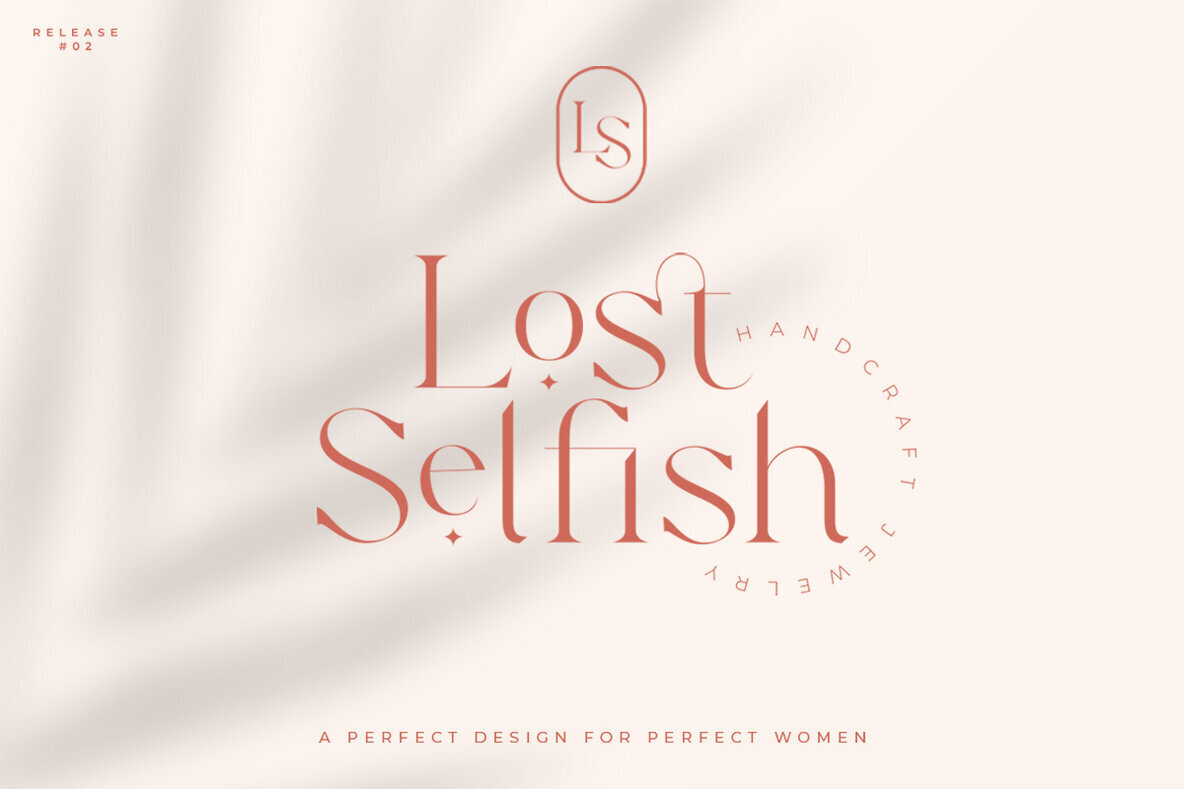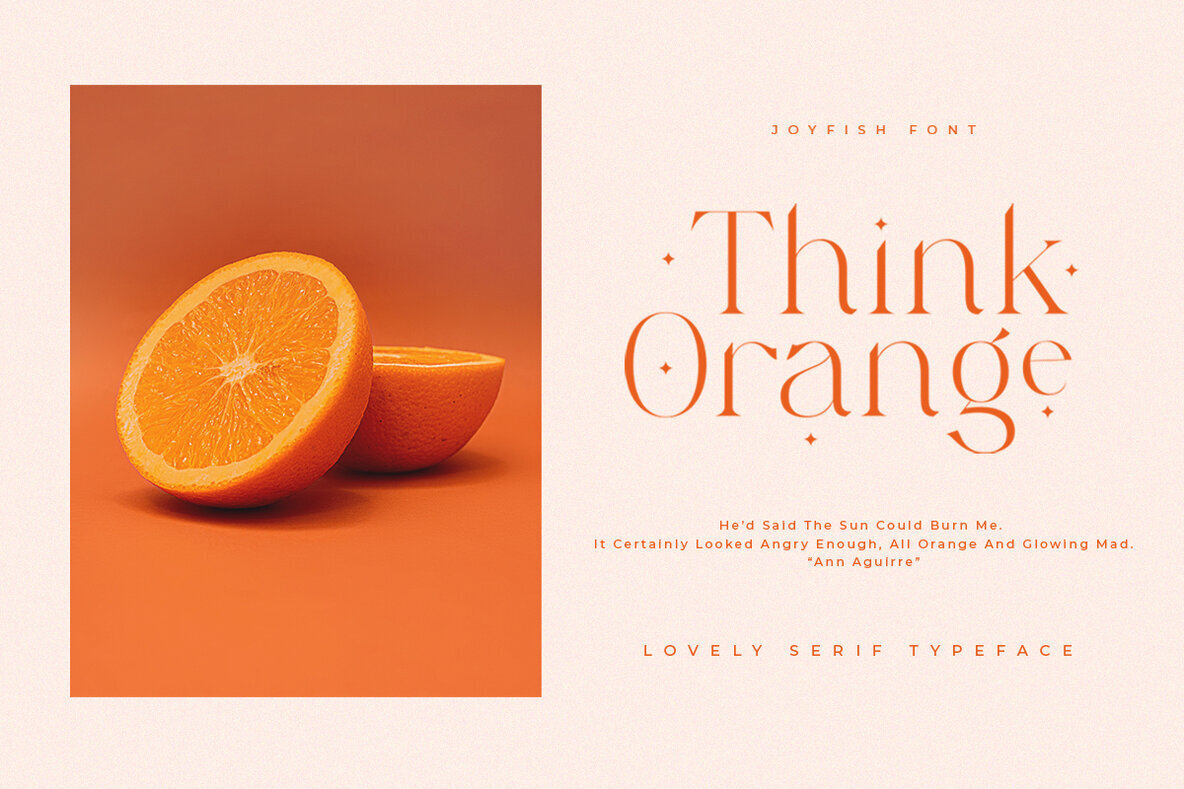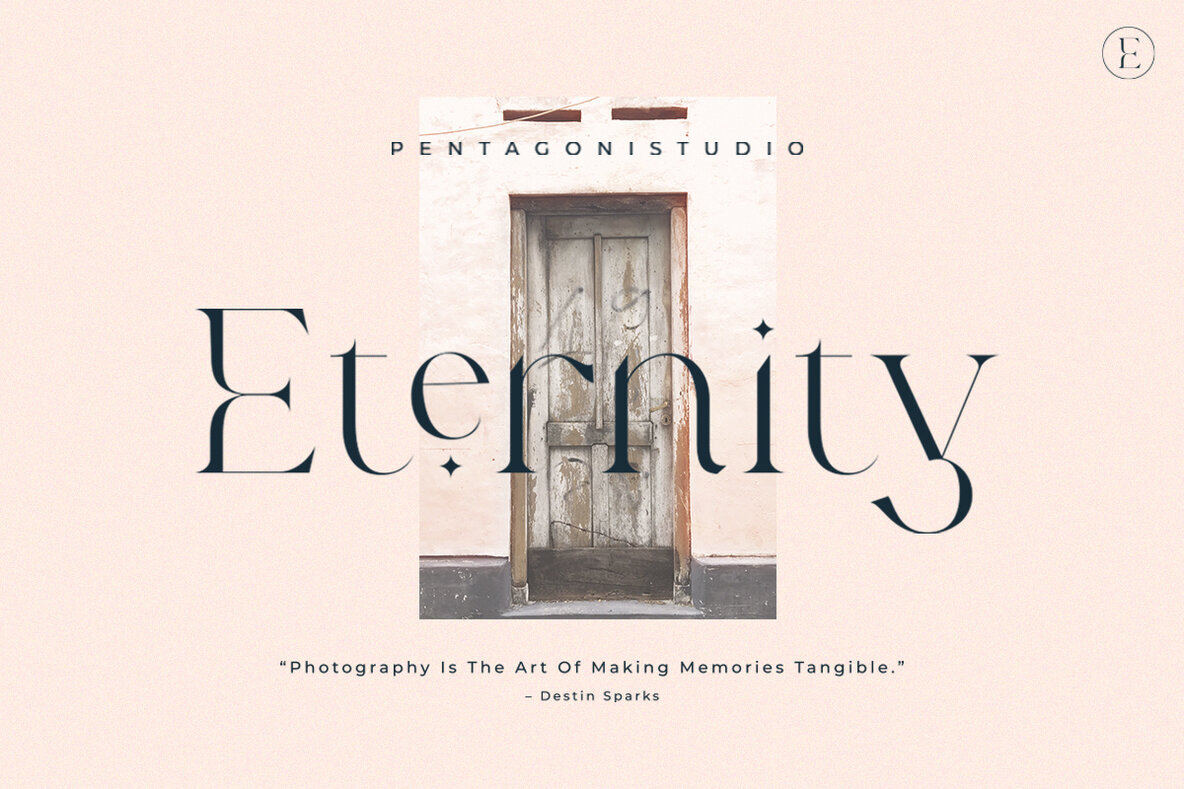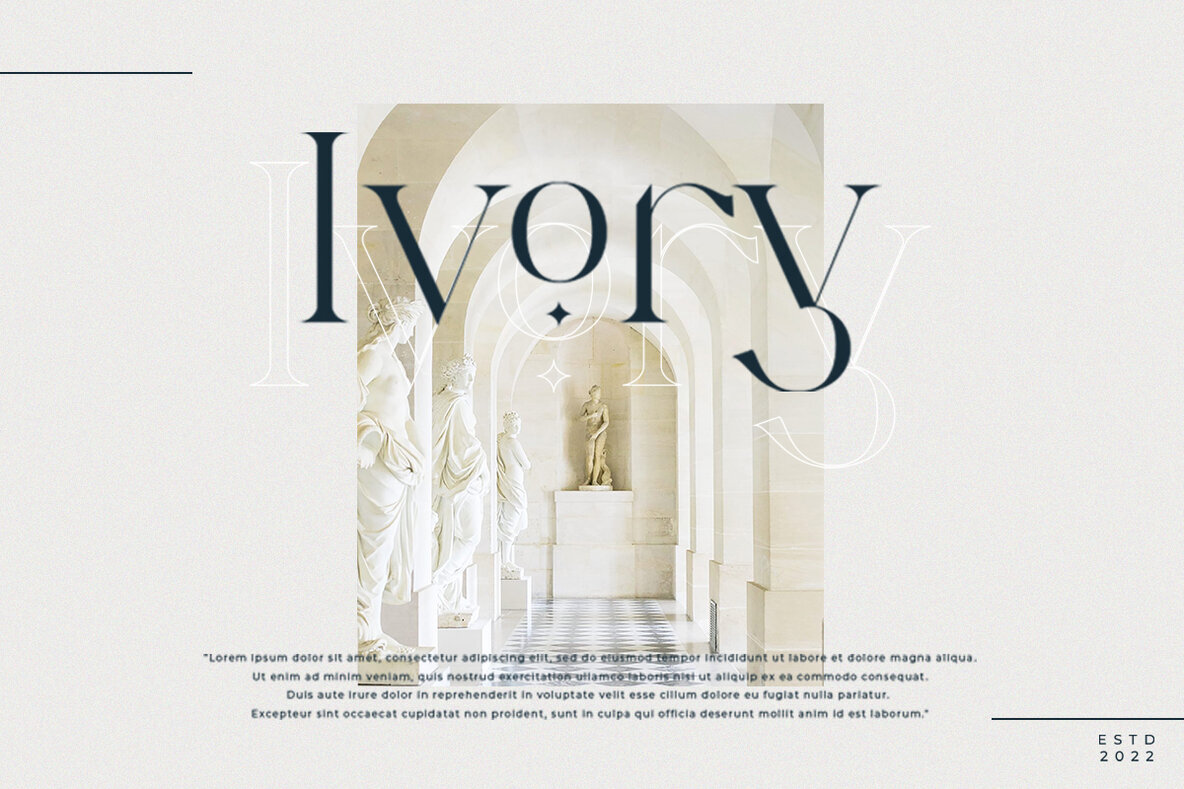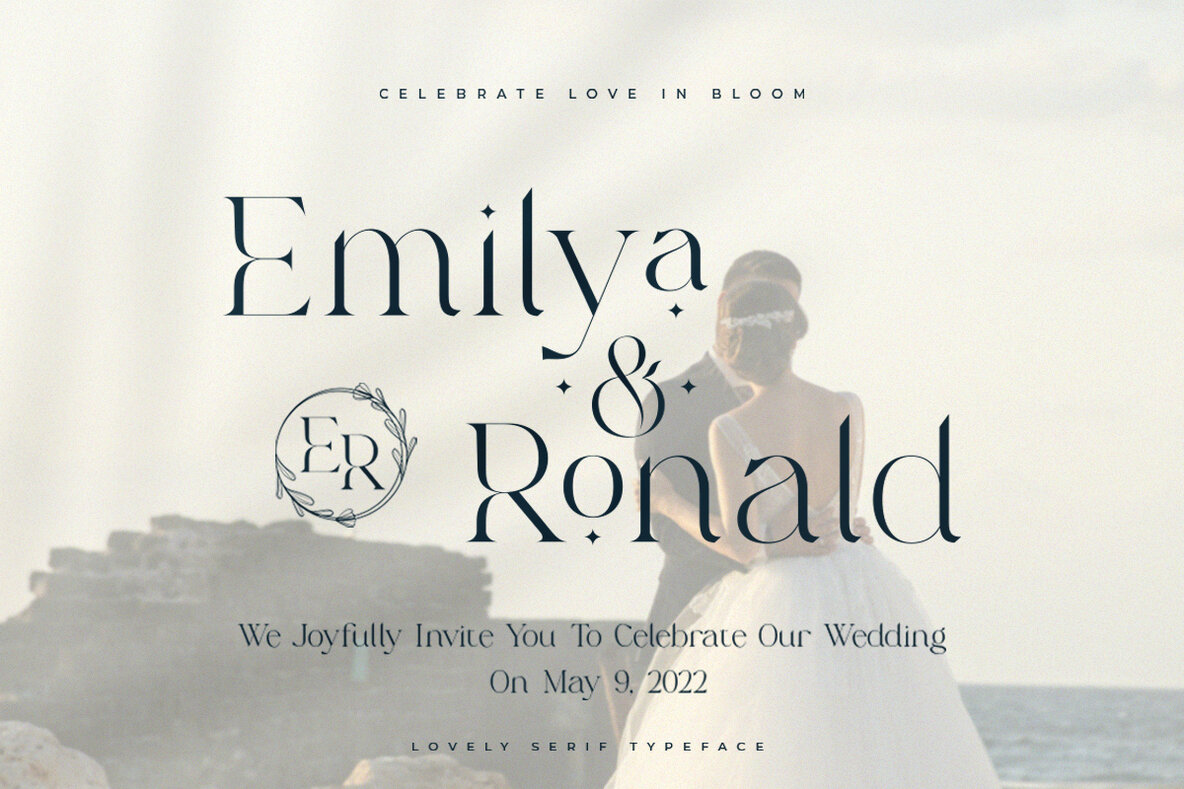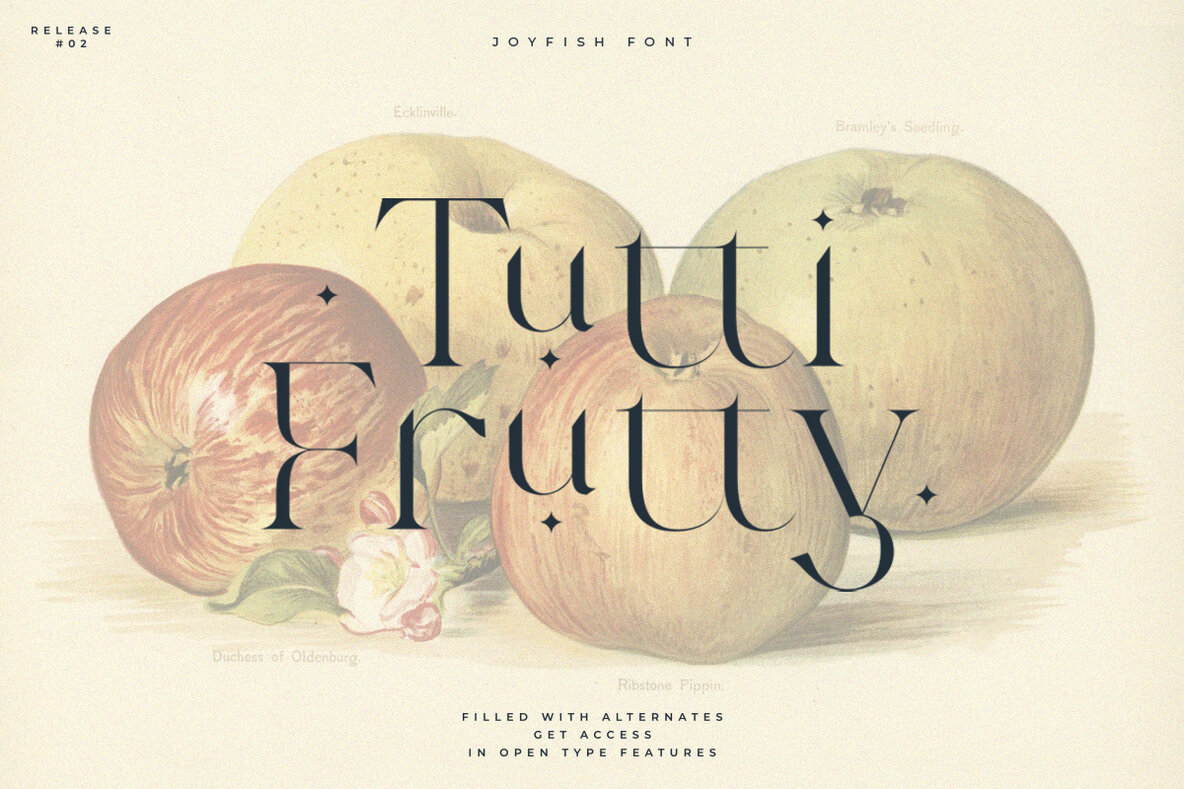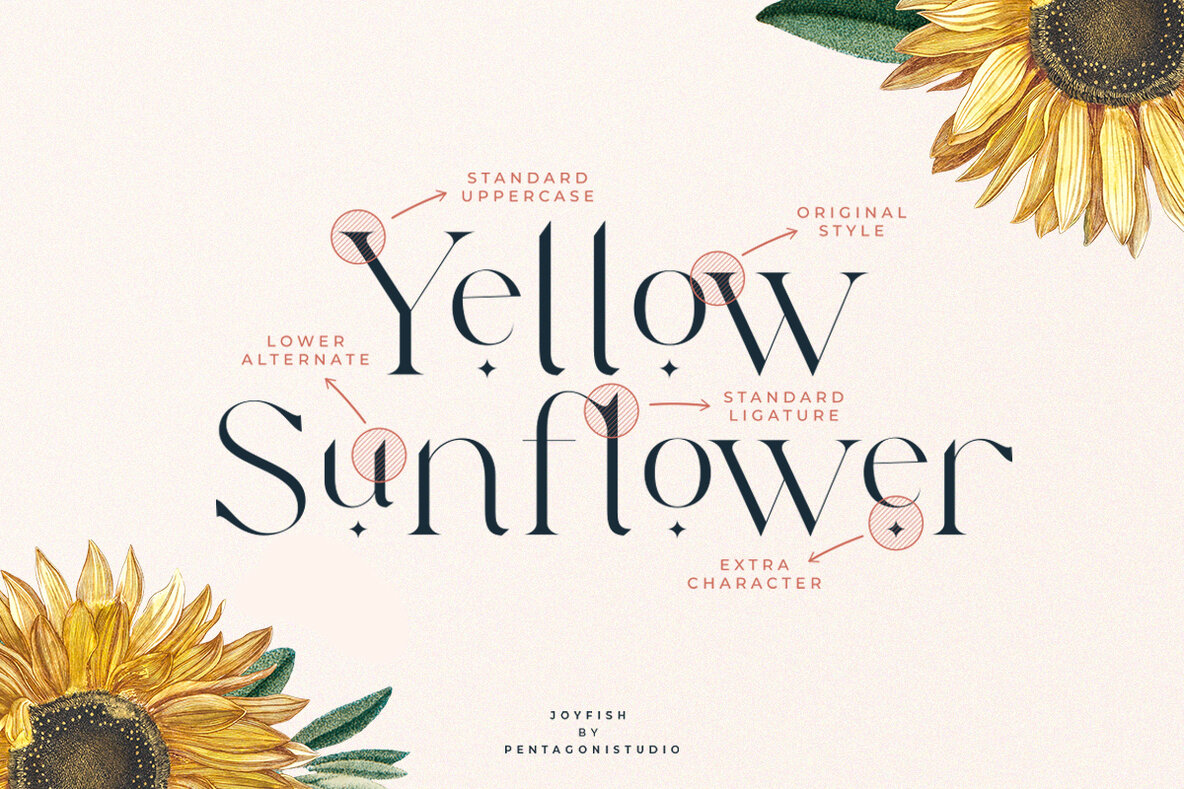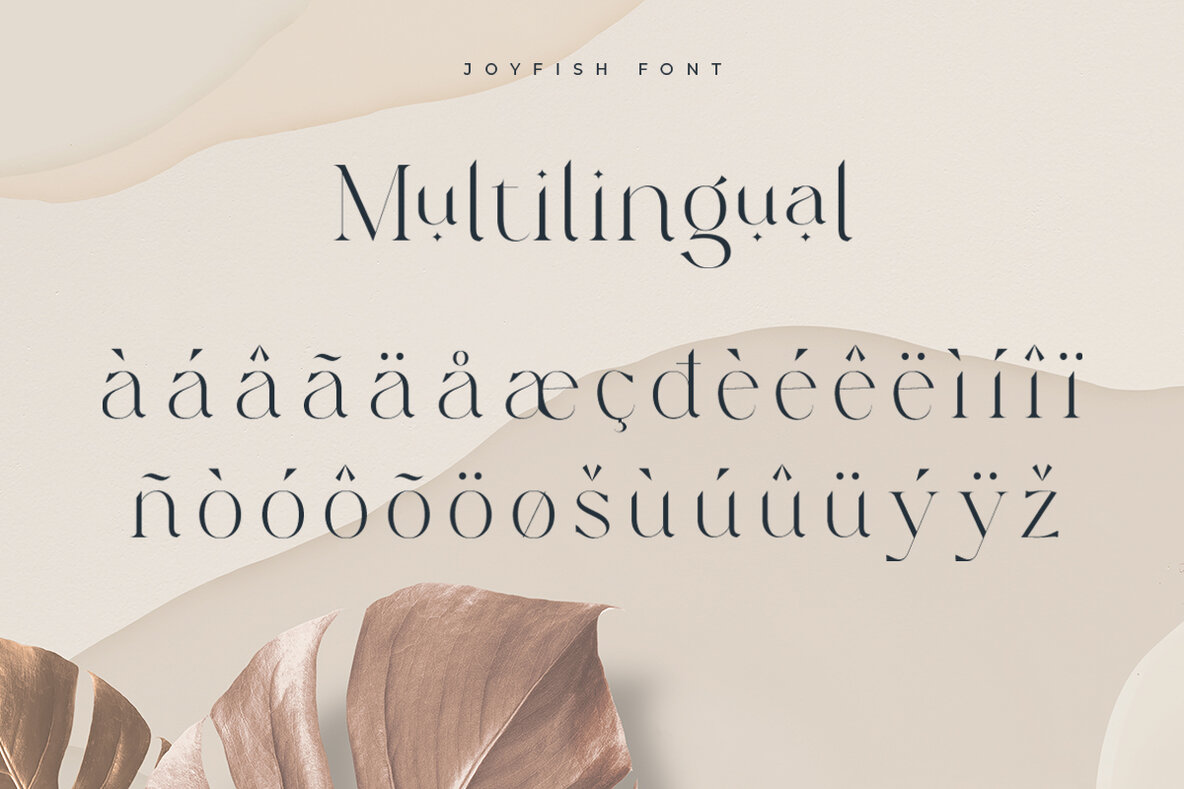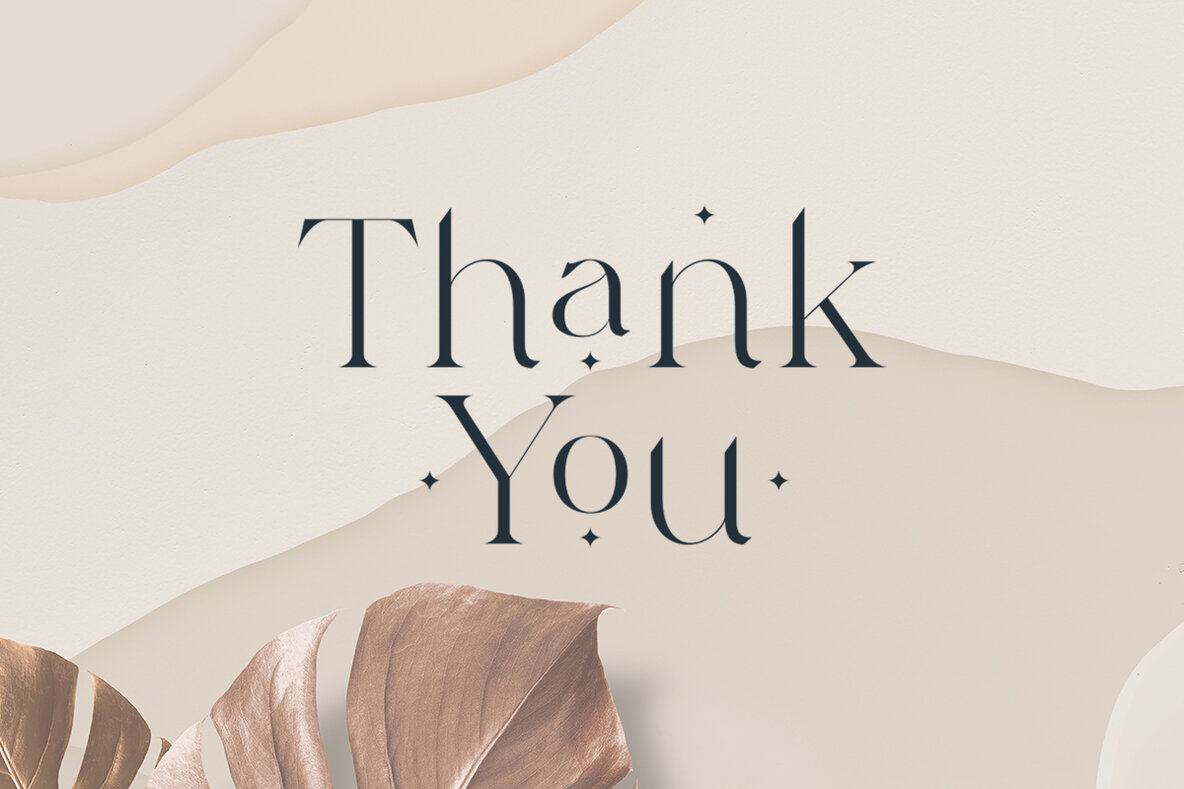
Joyfish Font
Joyfish
Joyfish presents itself as a lovely serif font, exuding luxury and feminine charm, ideal for design projects that call for a touch of elegance. Its inspiration from refined, high-end aesthetics allows it to seamlessly enhance visuals with its sophisticated aura.Joyfish: Serif Font with Luxury and Elegance